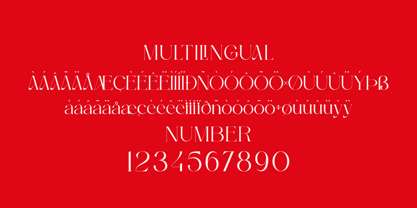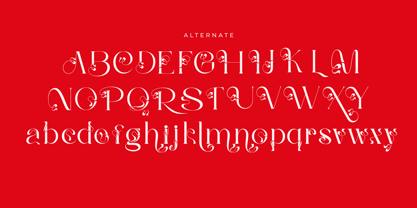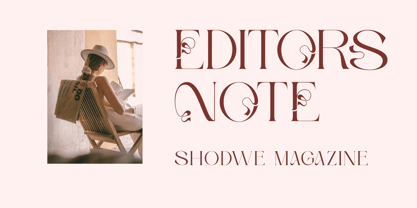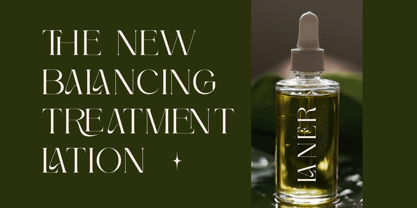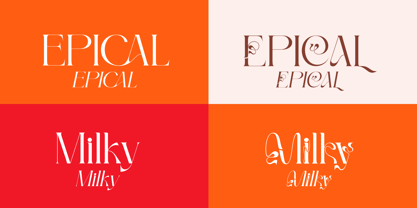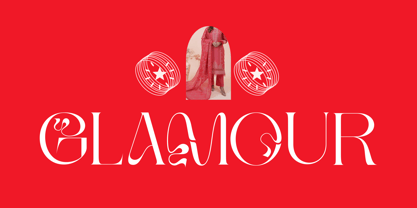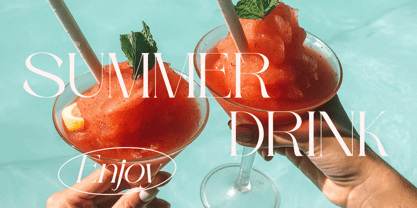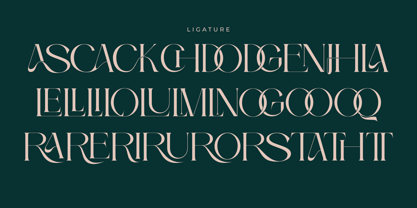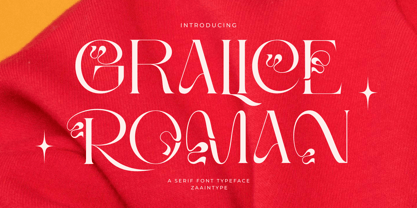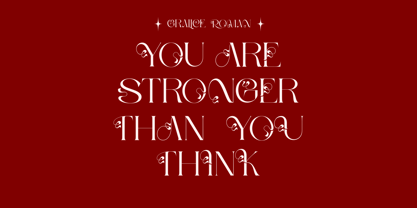
Gralice Roman
by Zaain Type
The Gralice Roman Font Family was designed by Ju Naen and published by Zaain Type. Gralice Roman contains 2 styles and family package options.
Gralice Roman is an elegant serif typeface with classic proportions and refined details that exude timeless sophistication. Blending sharp lines with graceful curves, it strikes the perfect balance between tradition and modernity. Available in both Regular and Oblique styles, it is perfect for editorials, premium branding, invitations, and any design that seeks a touch of elegance and authority
Designers: Ju Naen
Publisher: Zaain Type
Foundry: Zaain Type
Design Owner: Zaain Type